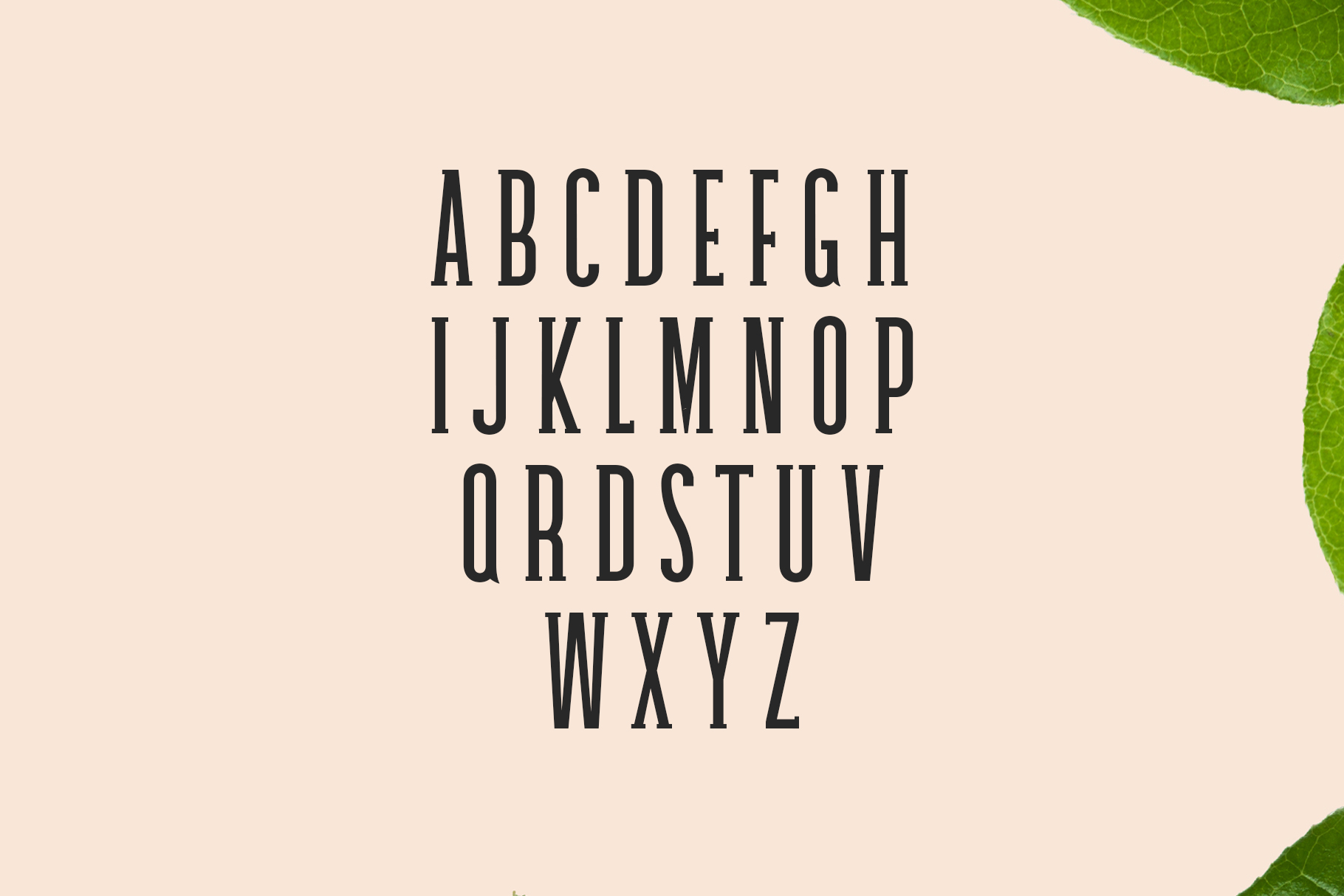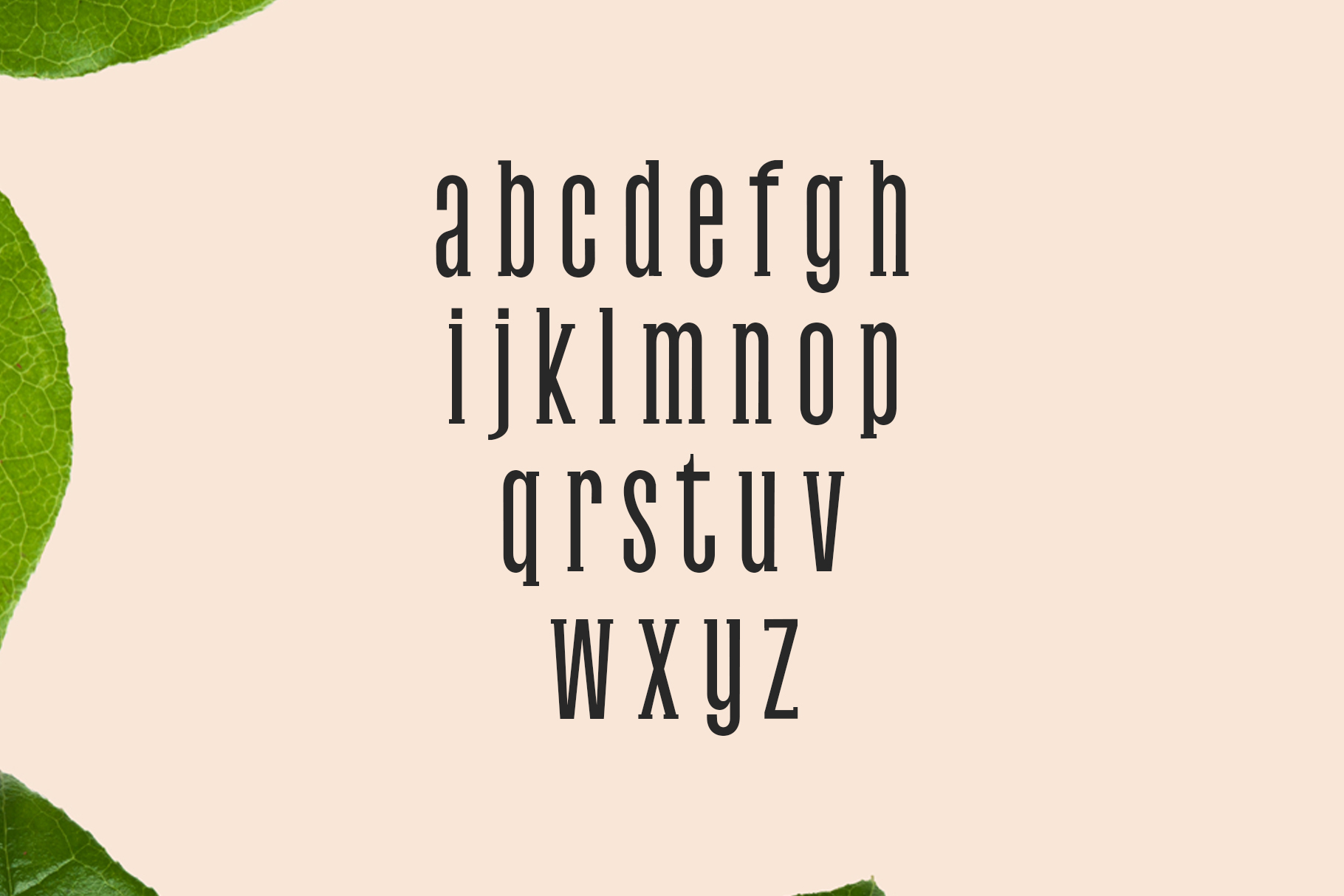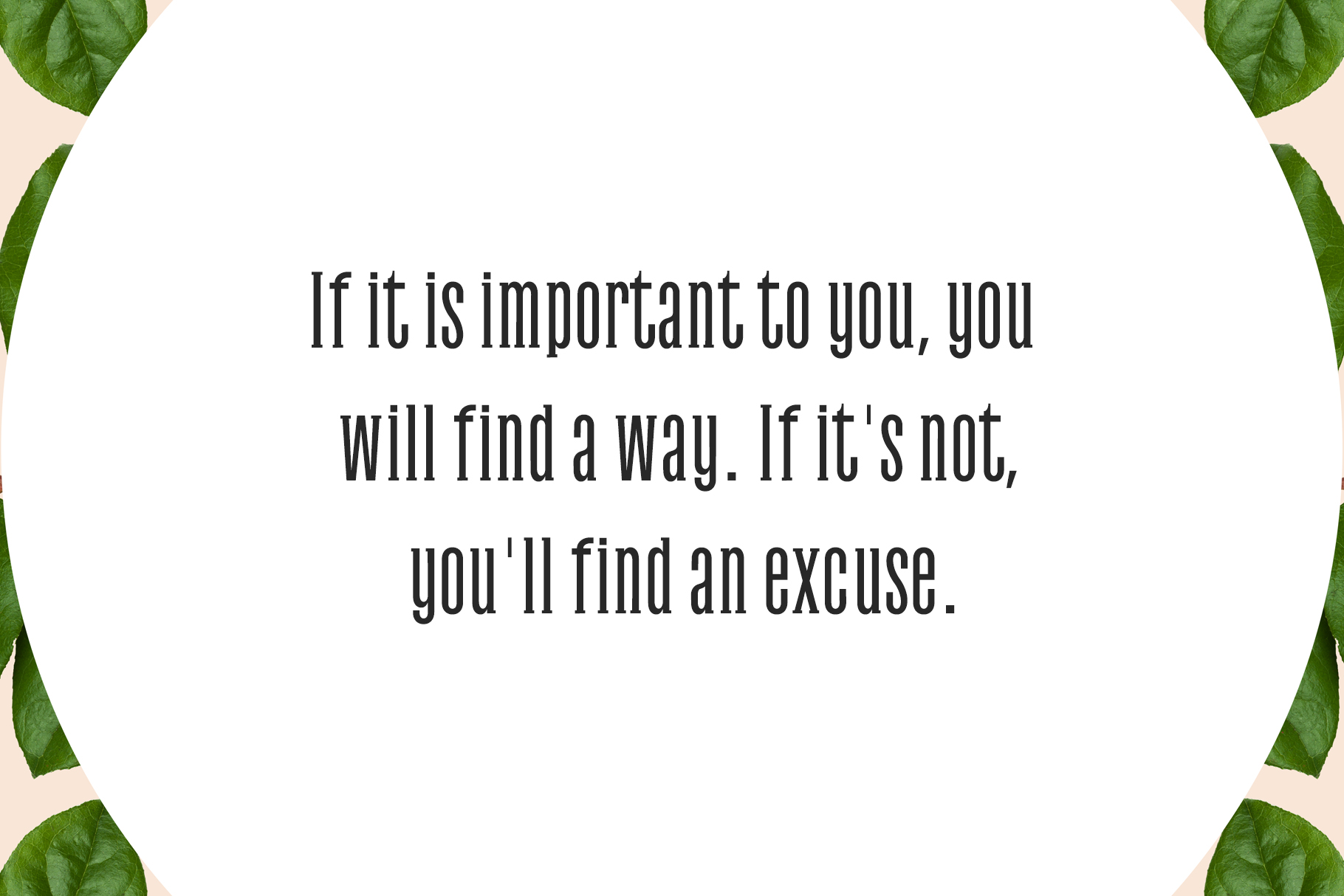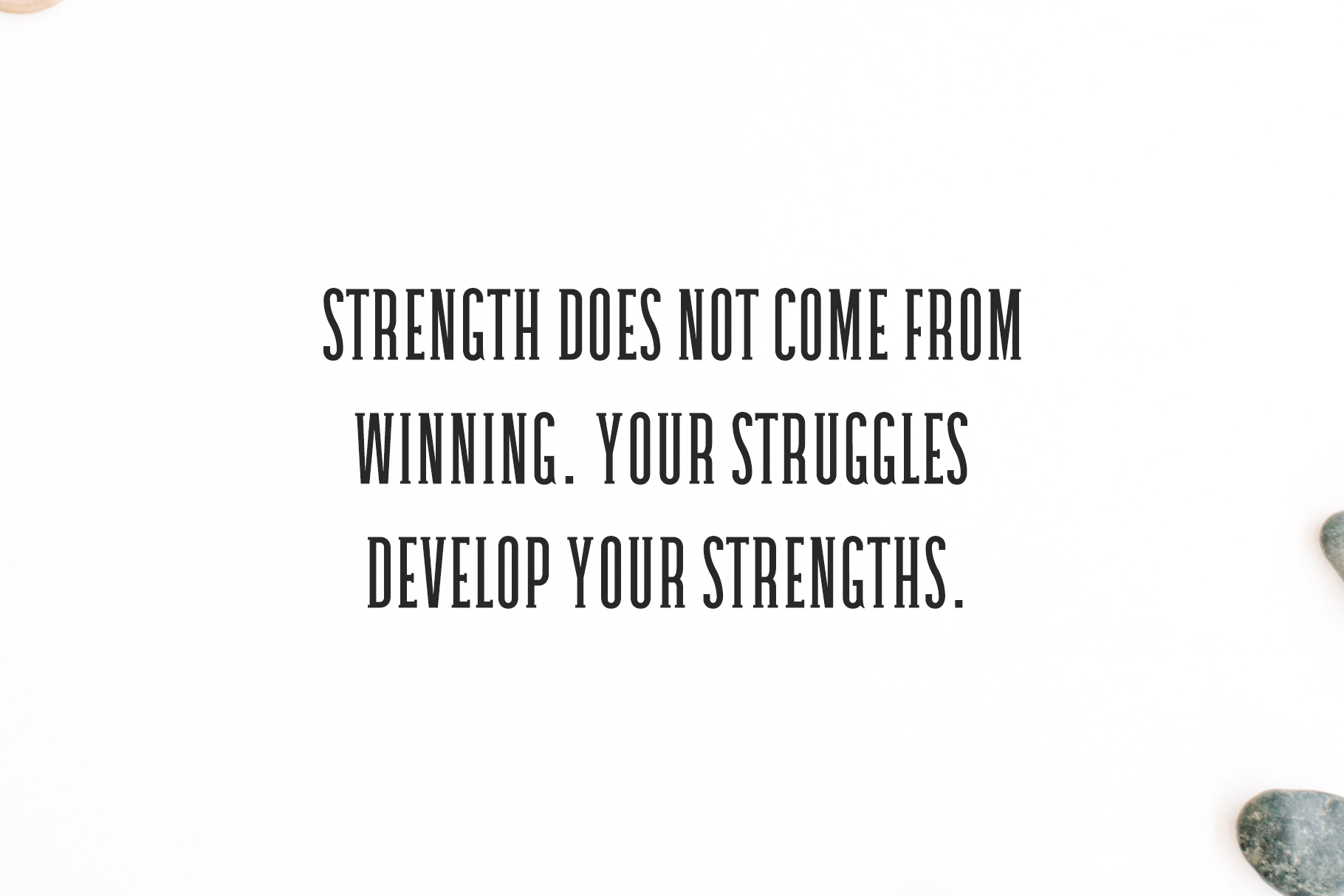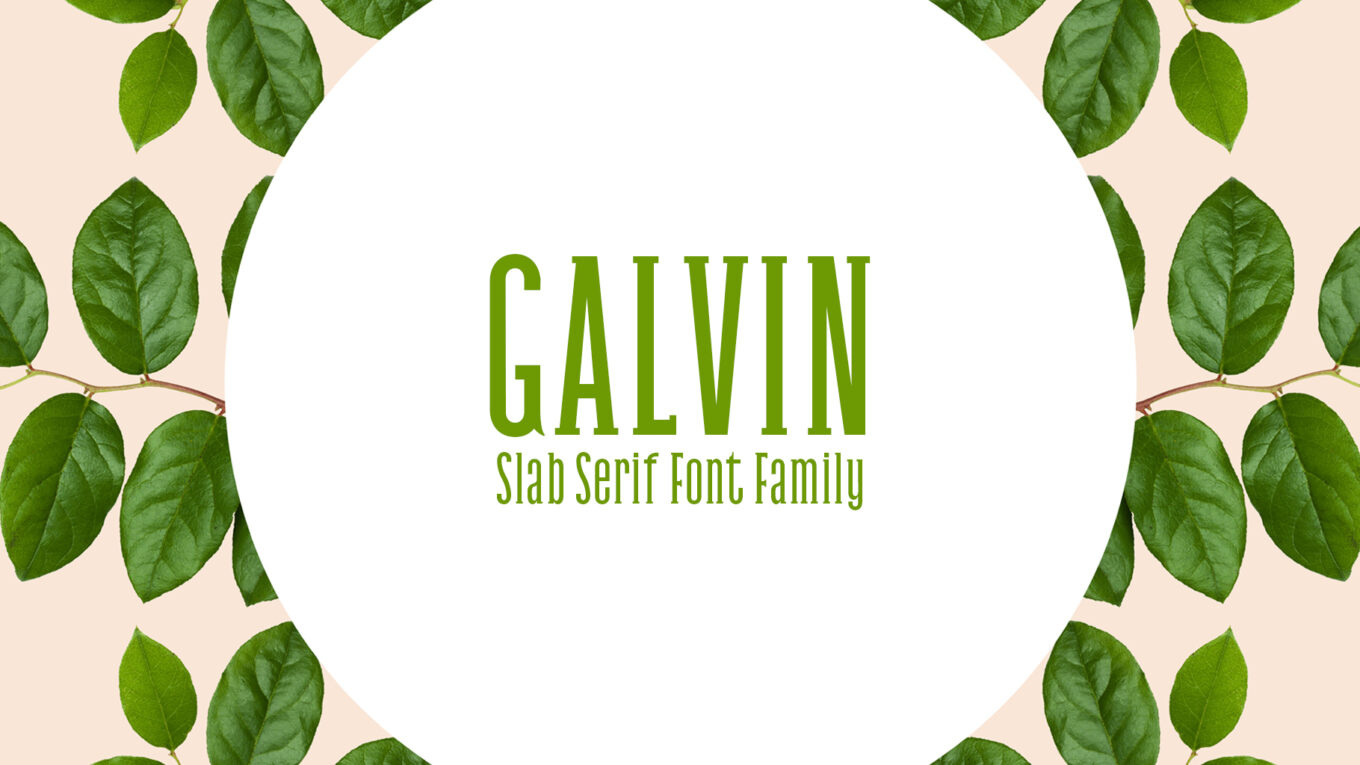
Introducing the Galvin Family Pack Font: A Unique Slab Serif for Modern Design
In the world of typography, a good font can make all the difference in the success of a design project. For designers and crafters looking for a unique and versatile font, the Galvin Family Pack Font is an excellent choice. Galvin is a slab serif font that effortlessly blends classic and modern elements, making it perfect for a wide range of projects and styles.
What is the Galvin Family Pack Font?
Galvin is a carefully crafted slab serif font that boasts an extremely clean and sharp appearance. Its unique design allows it to skirt the line between classic and modern, making it an ideal choice for designers who want to add a touch of sophistication to their work. The font features a sturdy and dependable look, thanks to its slab serif design, which is balanced by its sleek and refined lines.
Key Features of the Galvin Family Pack Font
- Unique Slab Serif Design: Galvin’s slab serif design gives it a distinctive look that sets it apart from other fonts.
- Clean and Sharp Appearance: The font’s clean and sharp lines make it perfect for use in a variety of design projects, from digital to print.
- Classic and Modern Blend: Galvin’s design effortlessly blends classic and modern elements, making it a versatile choice for designers.
- Wide Range of Uses: The font is suitable for a wide range of projects, including branding, advertising, packaging, and more.
Why Choose the Galvin Family Pack Font?
There are many reasons why designers and crafters should consider using the Galvin Family Pack Font in their projects. Here are just a few:
- Versatility: Galvin’s unique design makes it suitable for use in a wide range of projects and styles.
- Readability: The font’s clean and sharp lines make it easy to read, even at small sizes.
- Uniqueness: Galvin’s slab serif design gives it a distinctive look that sets it apart from other fonts.
- Professionalism: The font’s sleek and refined lines give it a professional appearance that’s perfect for use in business and marketing materials.
How to Use the Galvin Family Pack Font
The Galvin Family Pack Font can be used in a variety of design projects, including:
- Branding and Logo Design: Use Galvin to create a unique and memorable logo for your business or brand.
- Advertising and Marketing Materials: The font’s clean and sharp lines make it perfect for use in advertising and marketing materials, such as brochures, flyers, and posters.
- Packaging Design: Galvin’s sturdy and dependable look makes it a great choice for packaging design.
- Digital Design: The font’s sleek and refined lines make it suitable for use in digital design projects, such as websites and social media graphics.
In conclusion, the Galvin Family Pack Font is a unique and versatile slab serif font that’s perfect for designers and crafters looking for a clean and sharp font with a classic and modern blend. Its wide range of uses, readability, and professionalism make it an excellent choice for a variety of design projects. Whether you’re working on a branding project, advertising materials, or packaging design, Galvin is a great choice.